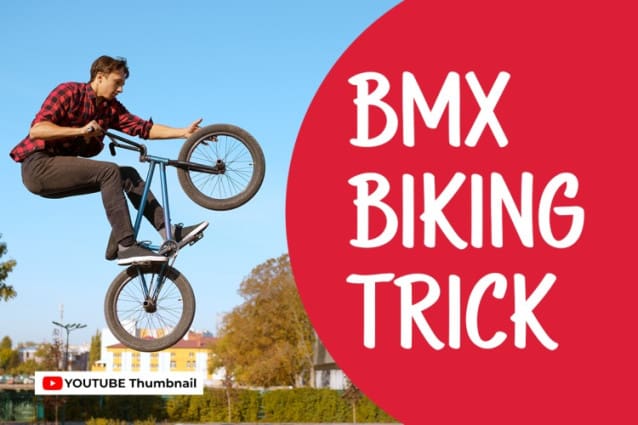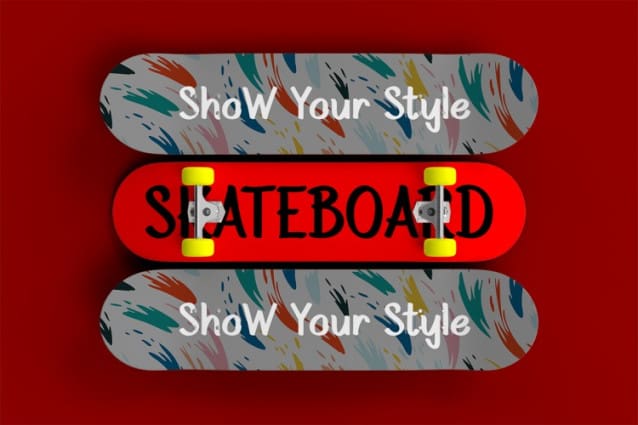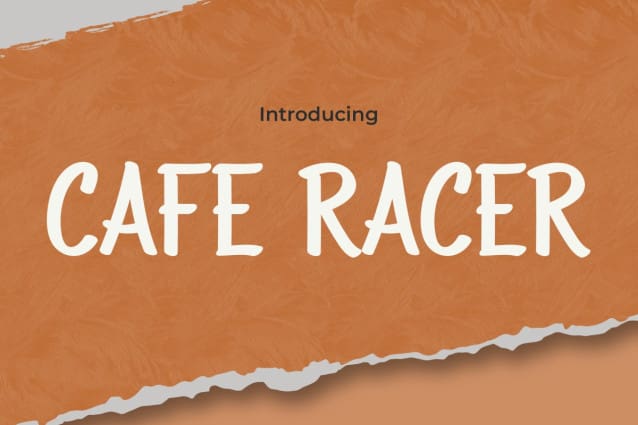
Cafe Racer Font
Cafe Racer Font is a font that embodies the spirit of adventure and freedom. With its bold and dynamic design, each letter exudes energy and toughness. Inspired by the daring lifestyle of caferacer motorcycle riders who fearlessly navigate rugged roads, this font combines thickness and sharp lines, evoking a sense of solidity and bravery. Whether used for posters, logos, or merchandise targeting adventure enthusiasts, every word written in CafeRacer leaves an unmatched impression of resilience and daring.
Cafe Racer font is the perfect choice for those looking to express the spirit of adventure and freedom in their design projects. With its strong and passionate characters, each letter invites exploration. From vintage to modern styles, Cafe Racer offers versatility in various design contexts. Suitable for all types of media, from print to digital, this font provides a unique and captivating touch that will make your designs stand out. Get Cafe Racer now and bring an unforgettable sense of adventure to every design endeavor.